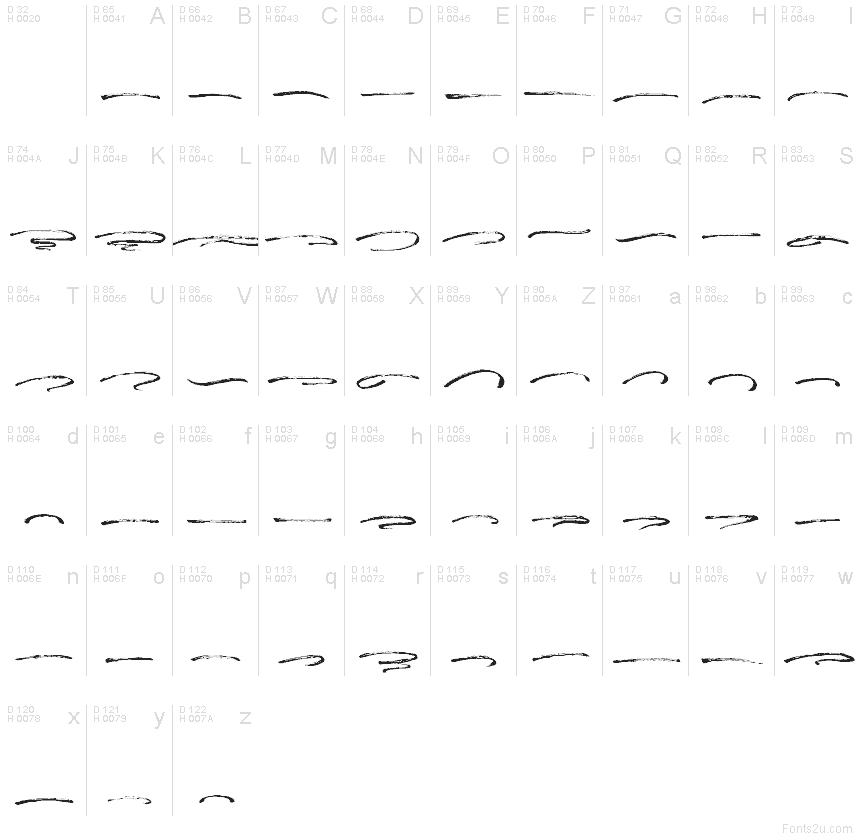
ClockBirdUnderlines
Clock Bird Underlines font by Akbartype is a free dingbat typeface. Part of the Clock Bird family, it gives you a toolbox of inky swooshes and curved underlines with soft, brushed edges and natural taper. When you need quick emphasis or a hand-drawn flourish, these marks slide under a word, bridge a gap, or frame a line—no pen tool wrestling, just crisp, organic accents that feel made by hand.
Using Clock Bird Underlines, you can elevate social posts, logos, packaging, invitations, quote graphics, and YouTube thumbnails in seconds. The strokes carry a lively rhythm that guides the eye and adds warmth without clutter. Pair this free font with a clean geometric sans or a casual script; set the swashes a touch larger than the text for a confident, polished finish.